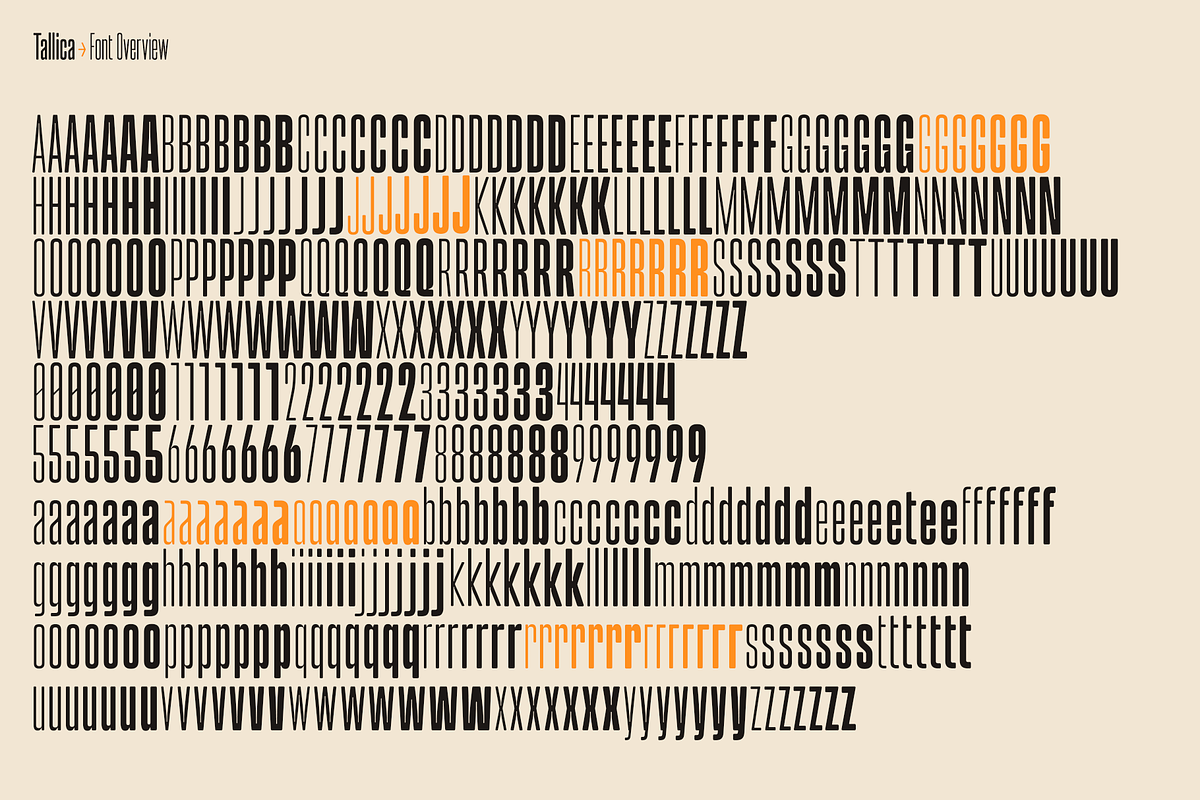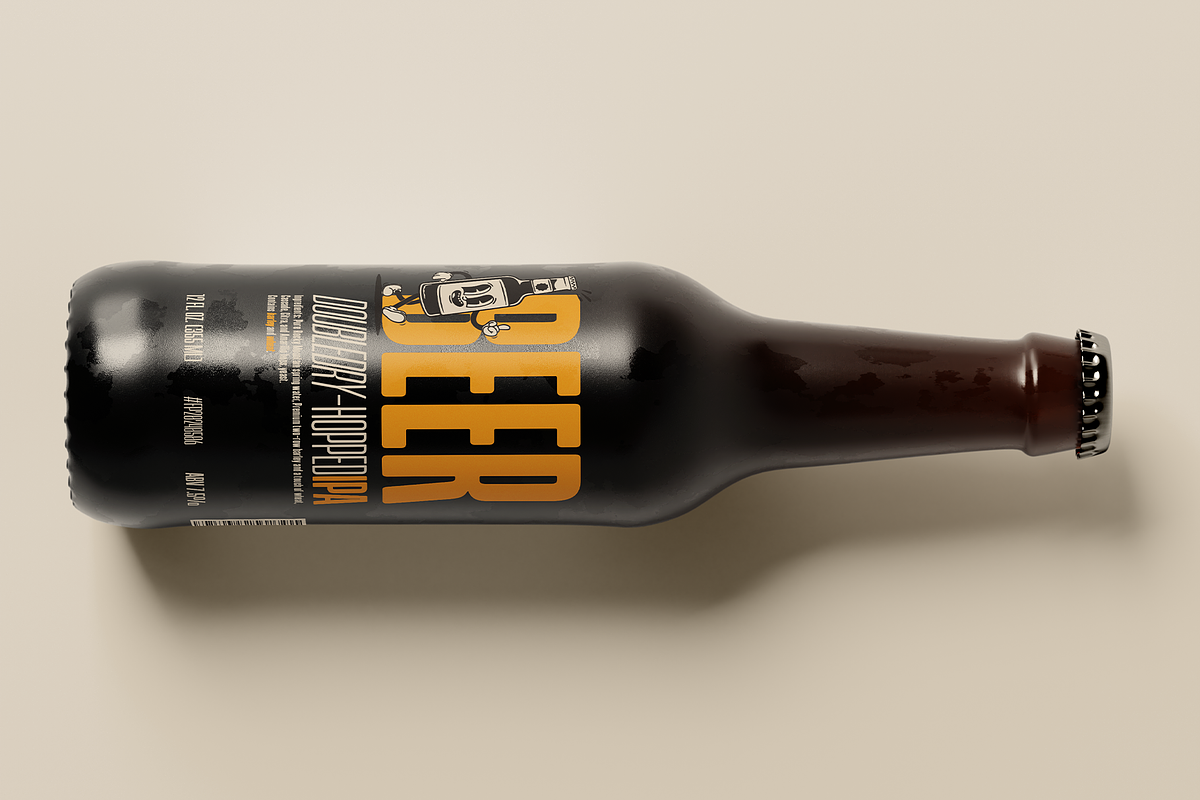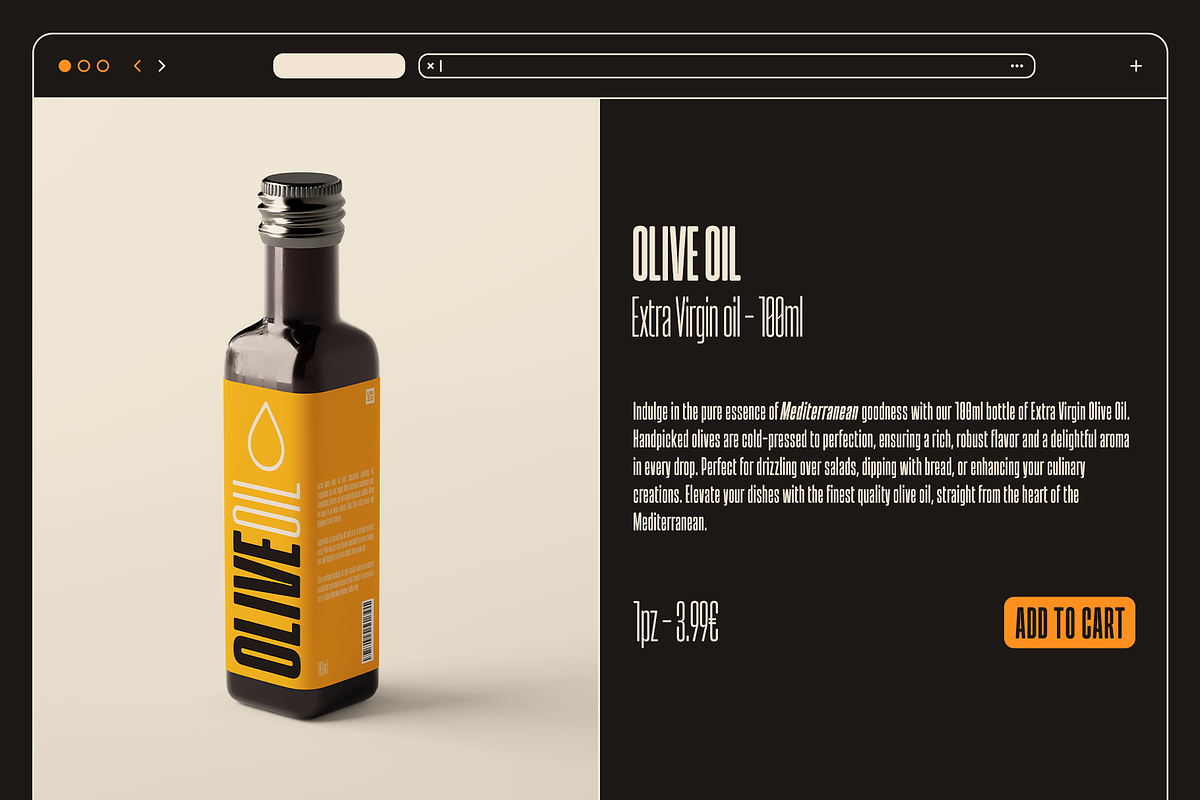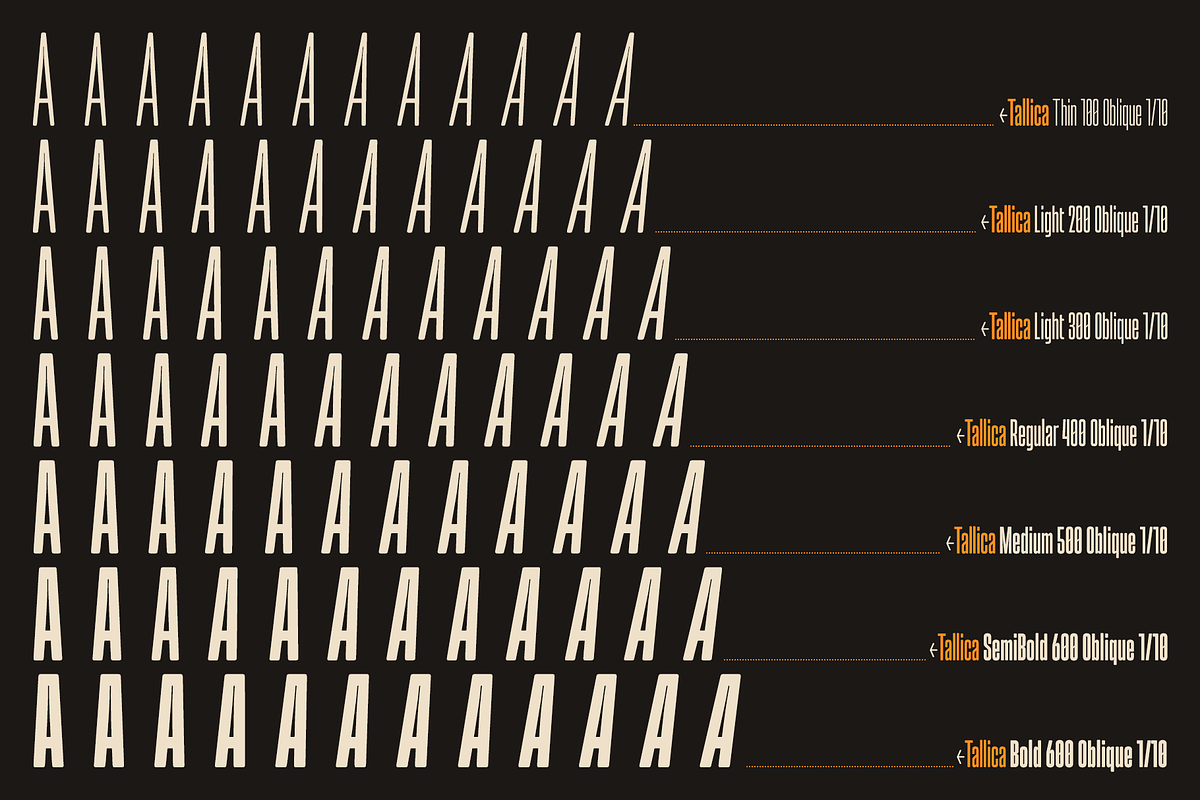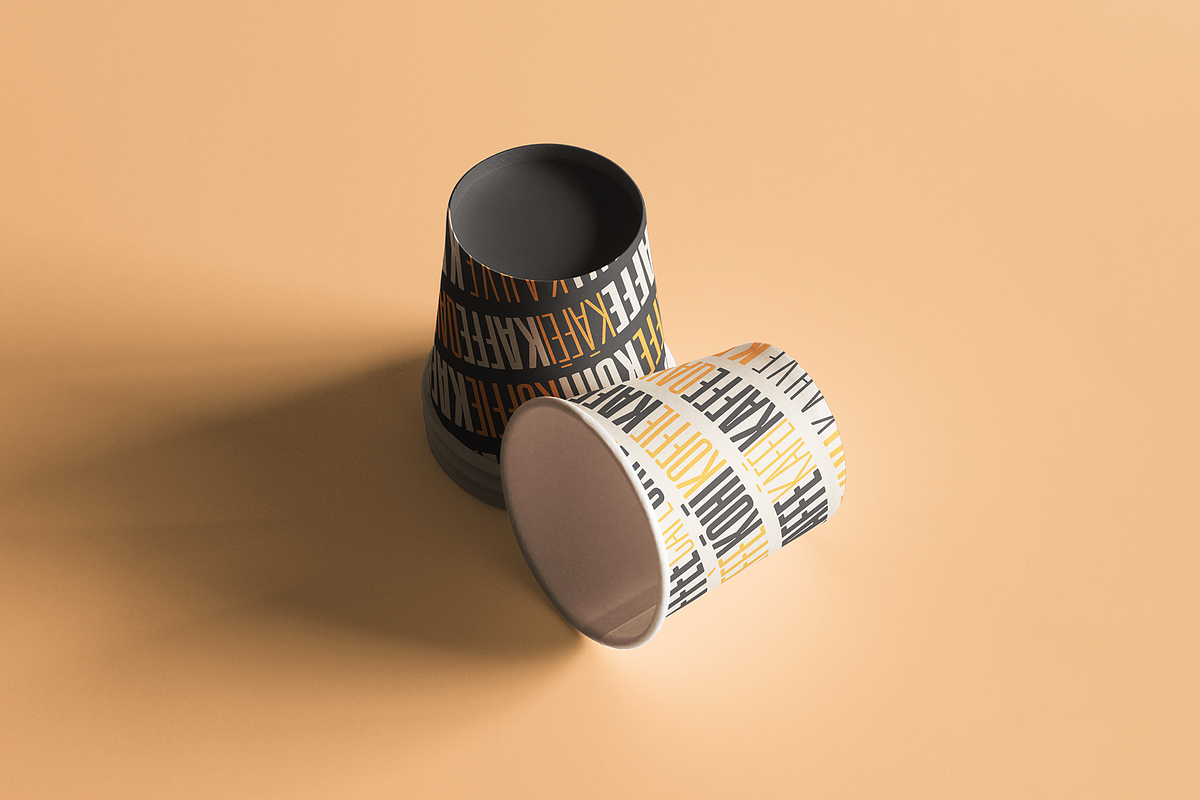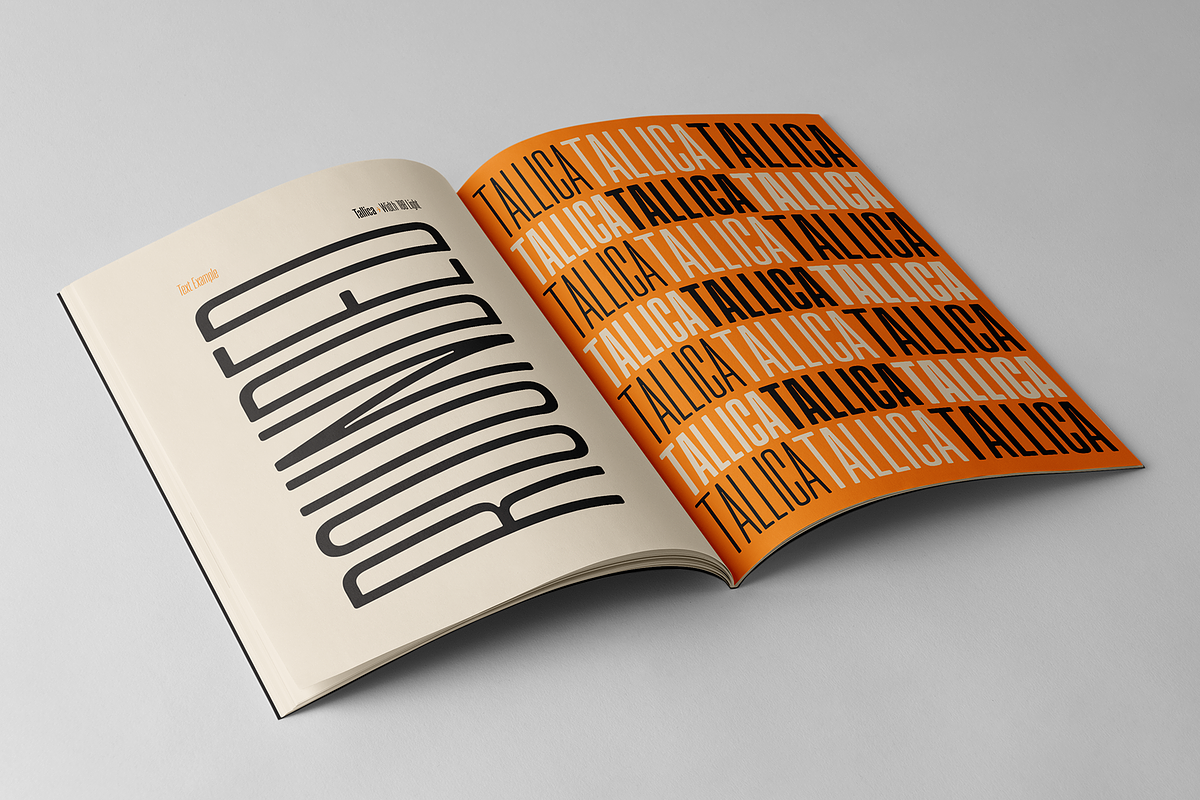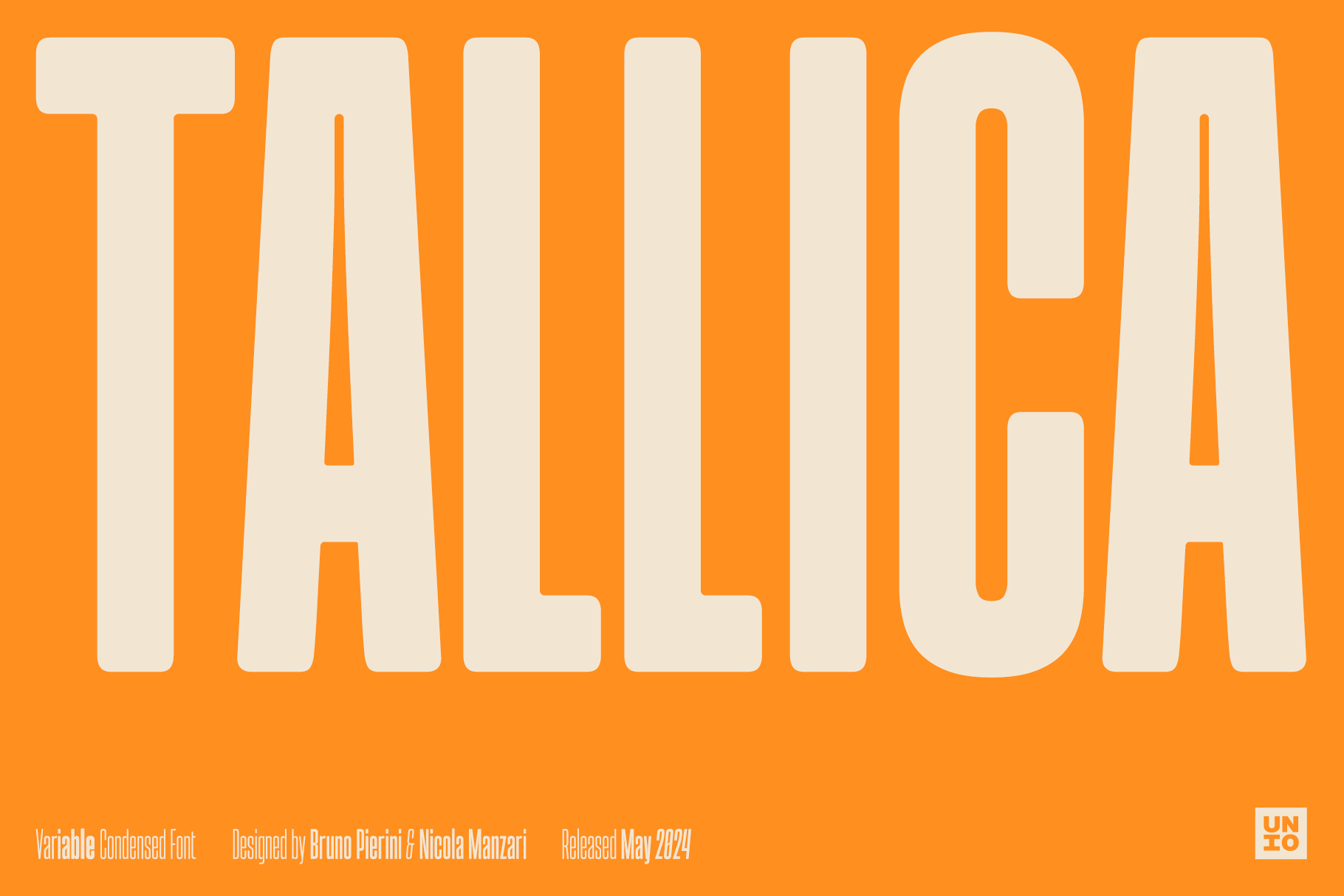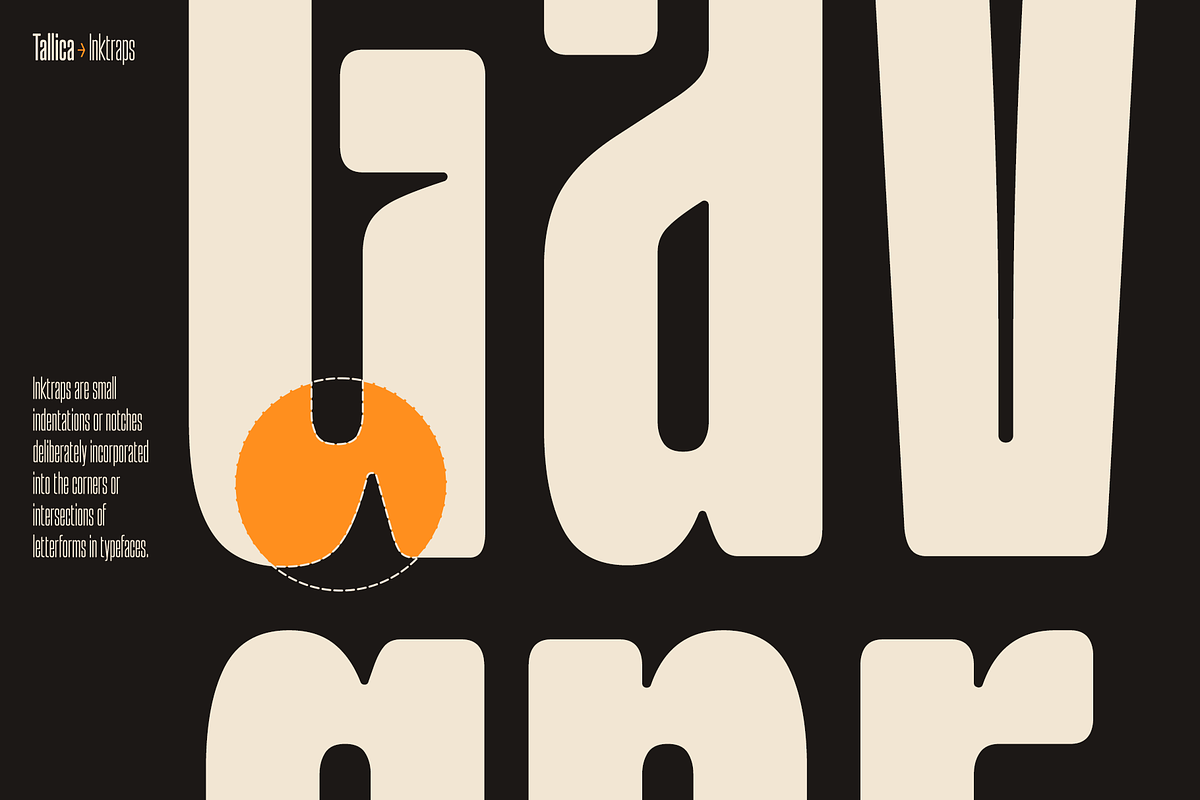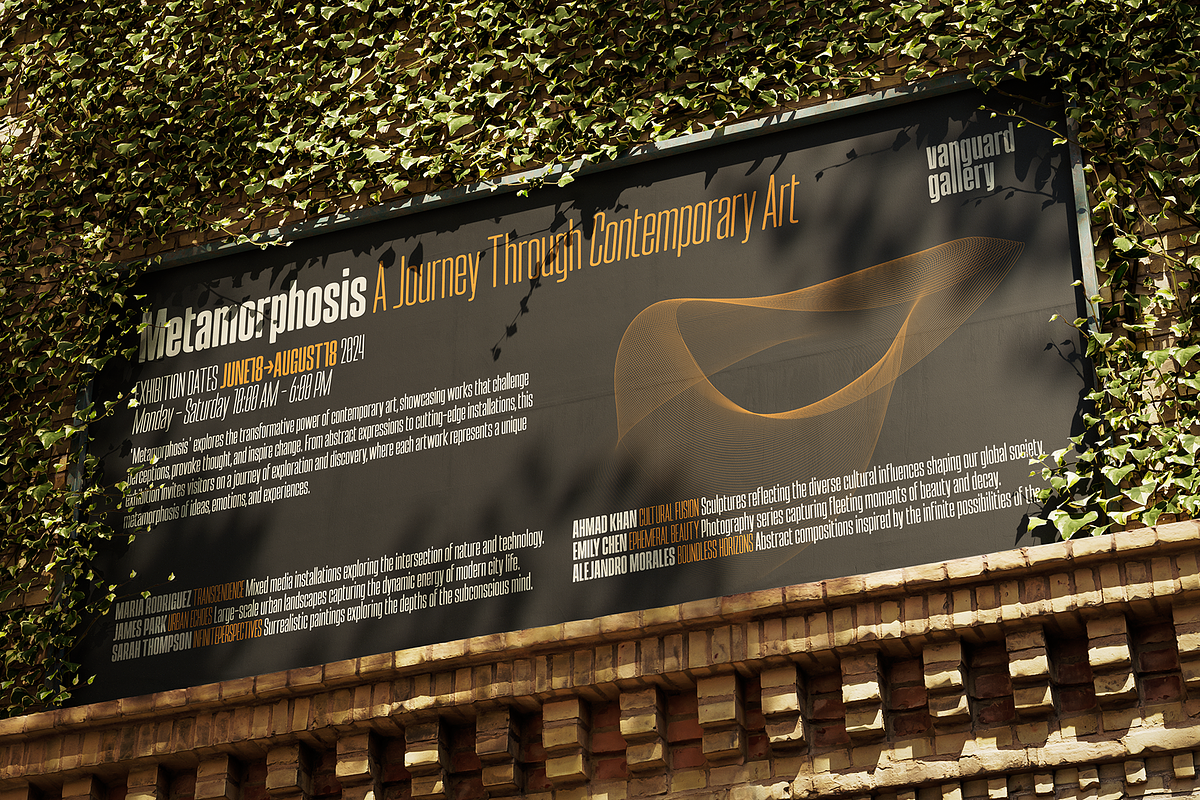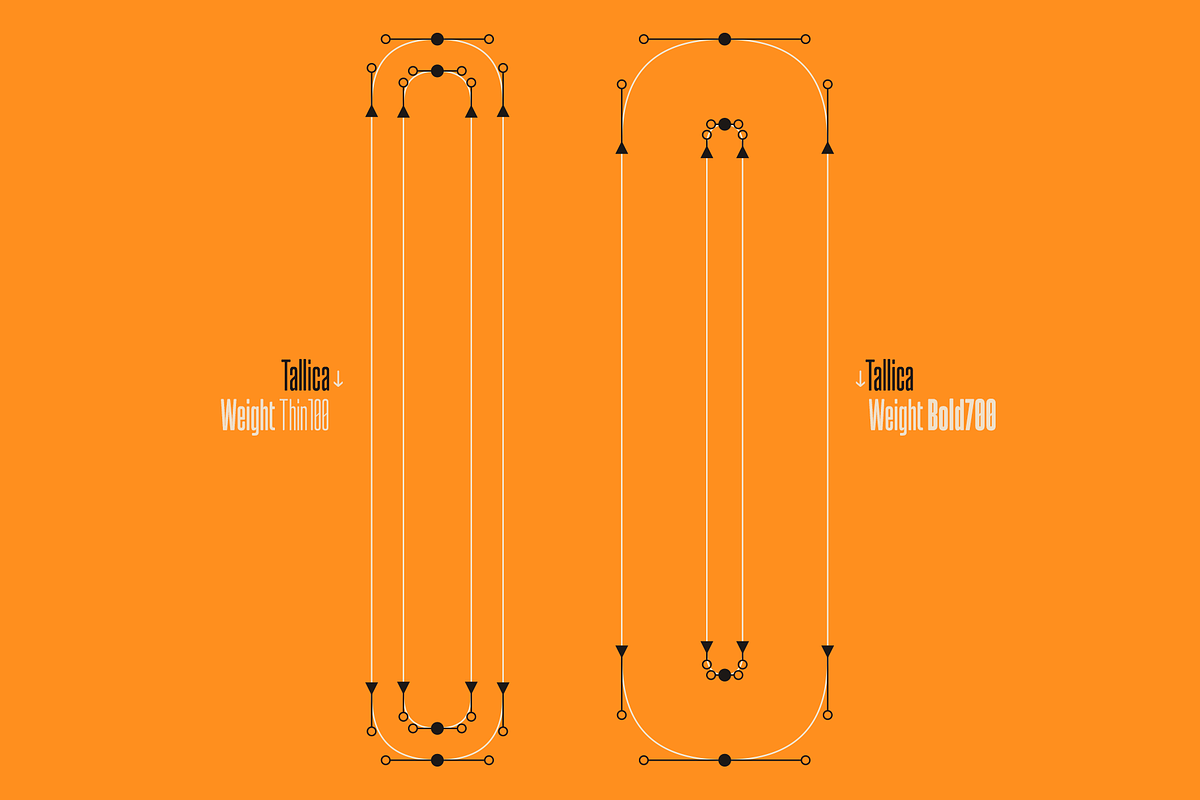
Tallica - Variable Typeface
Tallica, is an extra condensed grotesque typeface designed to steal the show. Its meticulously crafted ultra-compressed letterforms pack a powerful punch, allowing you to create impactful headlines and captivating displays even in the most space-restricted environments.
Engineered for Readability & Versatility
Often, condensed typefaces sacrifice legibility for visual impact. However, Tallica defies this convention. The design boasts a generous x-height, ensuring clarity and readability at even the most condensed weights. Tight line spacing further enhances visual coherence, making Tallica a true champion of both form and function.
This variable font family offers a comprehensive range of weights, from the elegance of Thin to the statement-making presence of Bold. Each weight seamlessly transitions into its oblique counterpart, providing a wealth of options for nuanced typographic expression.
Tallica takes a fresh approach to ink traps, those hidden details that ensure clean printing. We've modernized their function with smooth, rounded corners that enhance legibility while maintaining a touch of quirkiness. This subtle detail adds to Tallica's overall coherence with modern design aesthetics. While Tallica excels in display applications, its versatility extends far beyond headlines. The carefully considered letterforms and weights make it a perfect choice for logo design, packaging, and book covers, where space optimization and visual impact are paramount. With 400 glyphs supporting a broad range of languages, Tallica is truly a global design asset.
- Extra Readability: Maximize impact in space-limited environments (magazines, posters, packaging, etc.)
- Exceptional Readability: Maintains clarity at all weights with a high x-height and tight spacing.
- Variable Font: Offers a range of weights (Thin to Bold) with smooth transitions and oblique options for versatile expression.
- Multipurpose: Ideal for headlines, logos, branding, packaging, and editorial design.
- Global Support: Includes 400 glyphs for a broad range of languages.